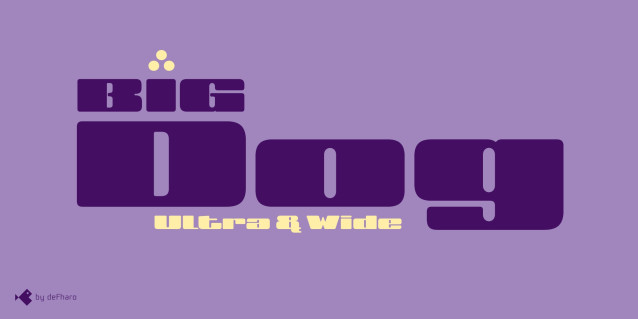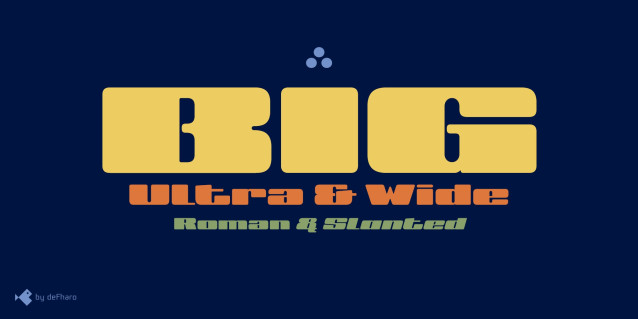
BIG 2 Font
BIG 2 Font is, as its name suggests, enormous, because with just three letters, it says more than others on a full line. It’s an ultra-wide, ultra-black, and ultra-expressive typeface, designed to occupy space with strength, determination, and style. Each letter is designed to shout without losing elegance, to impress while remaining functional.
I’ve kept the ascenders and descenders to a minimum; they’re short, almost anecdotal, because what matters here is the horizontal presence. I focused on every detail to enhance the width that makes it unique. The result is a powerful, coherent, and perfectly legible visual texture.